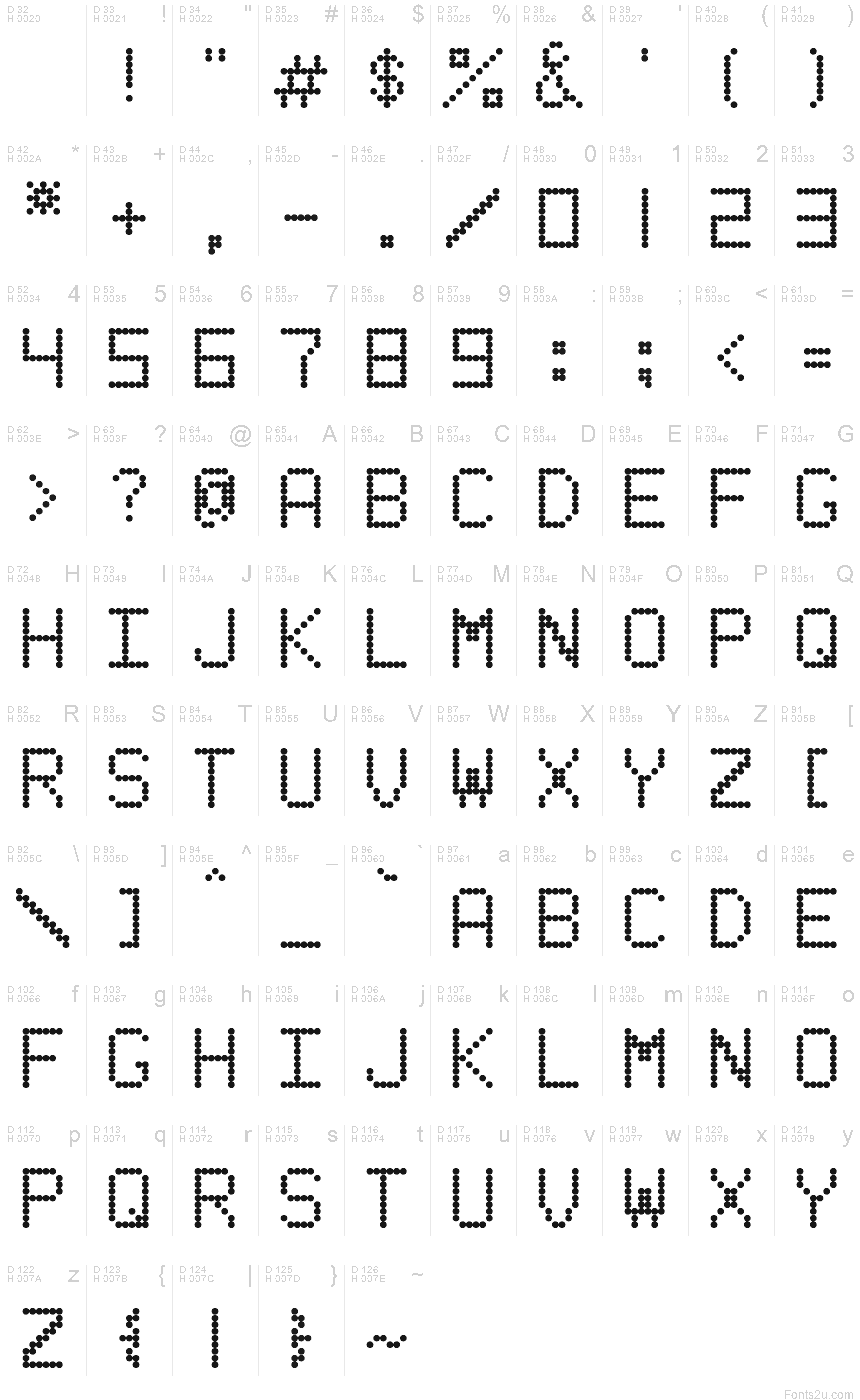
LED SCREEN GTAMBLOG CAPS+ 2.0 Regular
“LED SCREEN GTAMBLOG CAPS+ 2.0” was built with FontStruct
Designer description: An awkward name, for an odd little version of an "LED Screen Capitals Only" font...
Years ago, I contacted the author of a similar-styled font, to ask specifically for Commercial Use of his font, that looked somewhat like this one (I have been using at 'The Blog' since then).
Today, I found Fontstruct, and thought "why don't I make my own version this font, not only for 'The Blog' to use, but for others to possibly use as well?".
And so, here is an 'LED Screen' style font, with punctuation (capitals only, as traditional LED Screens would have used), made by my hand, on this wonderful, easy-to-use interface, Fontstruct.